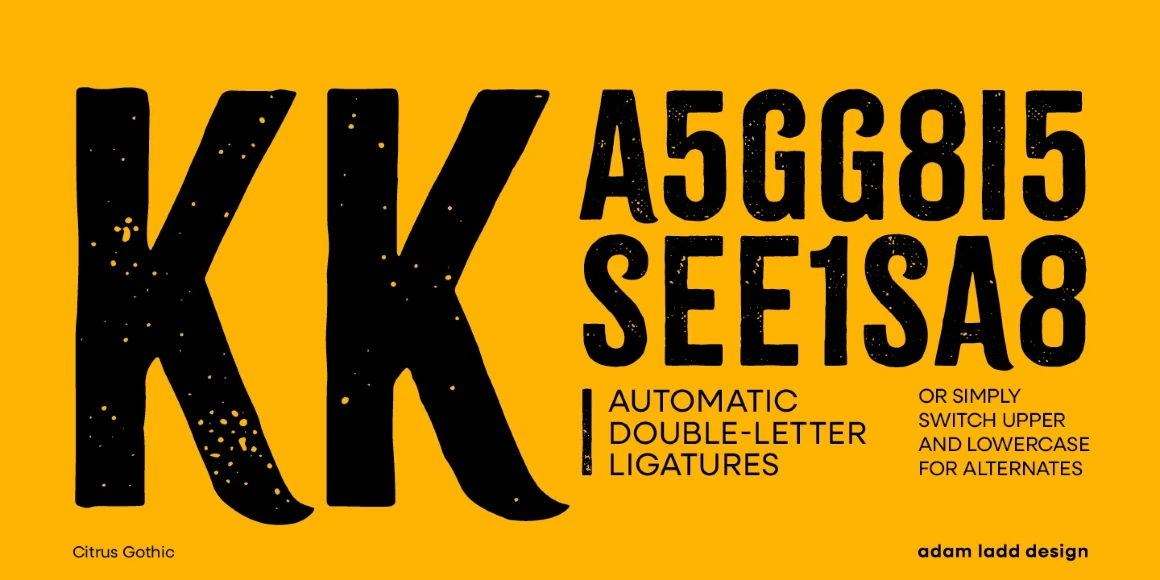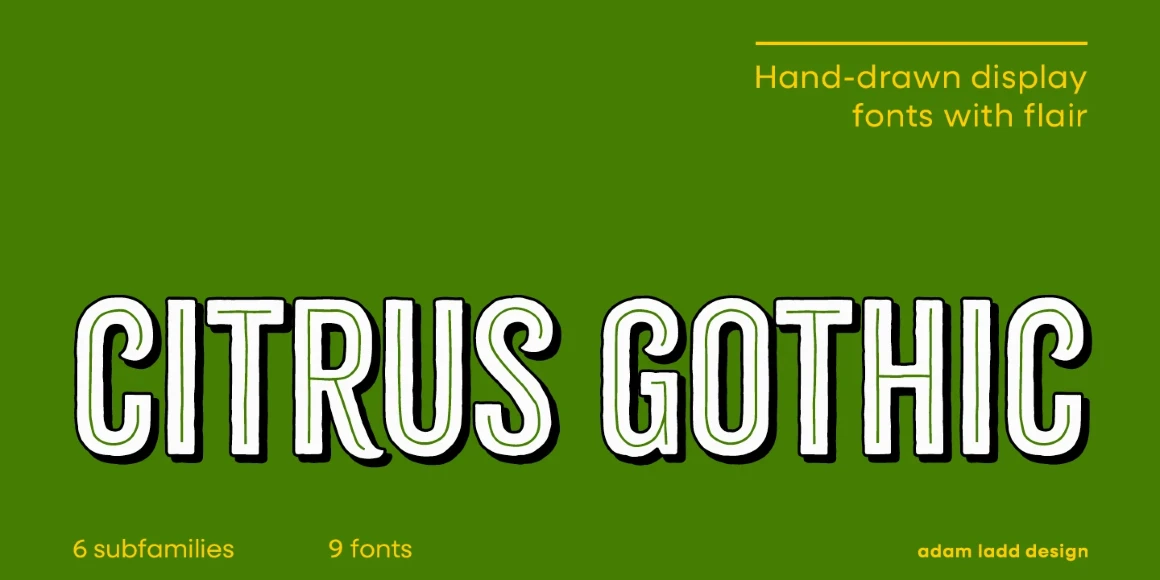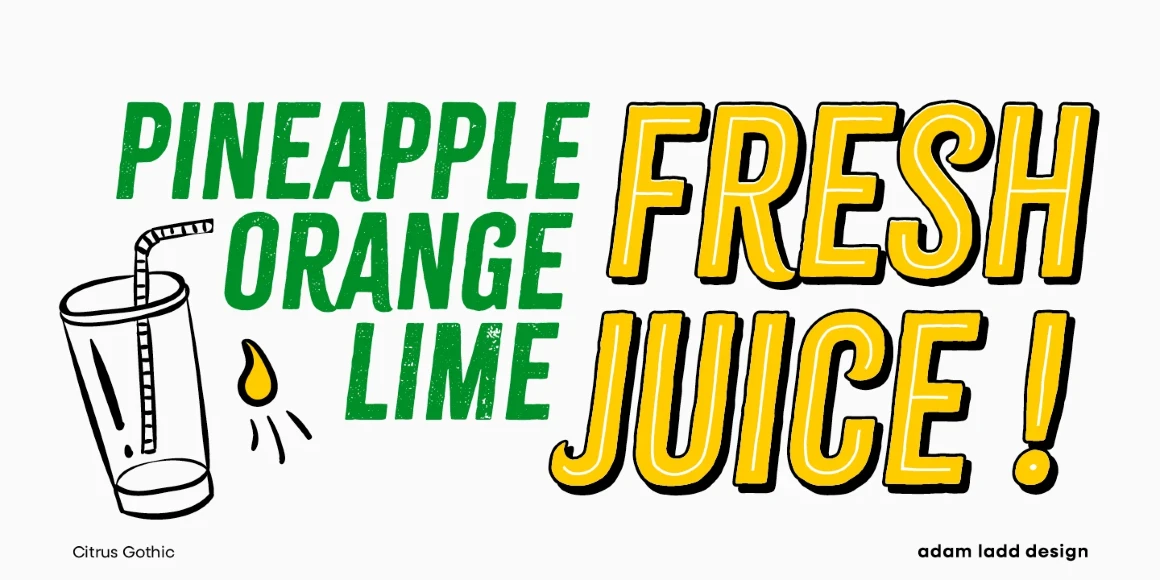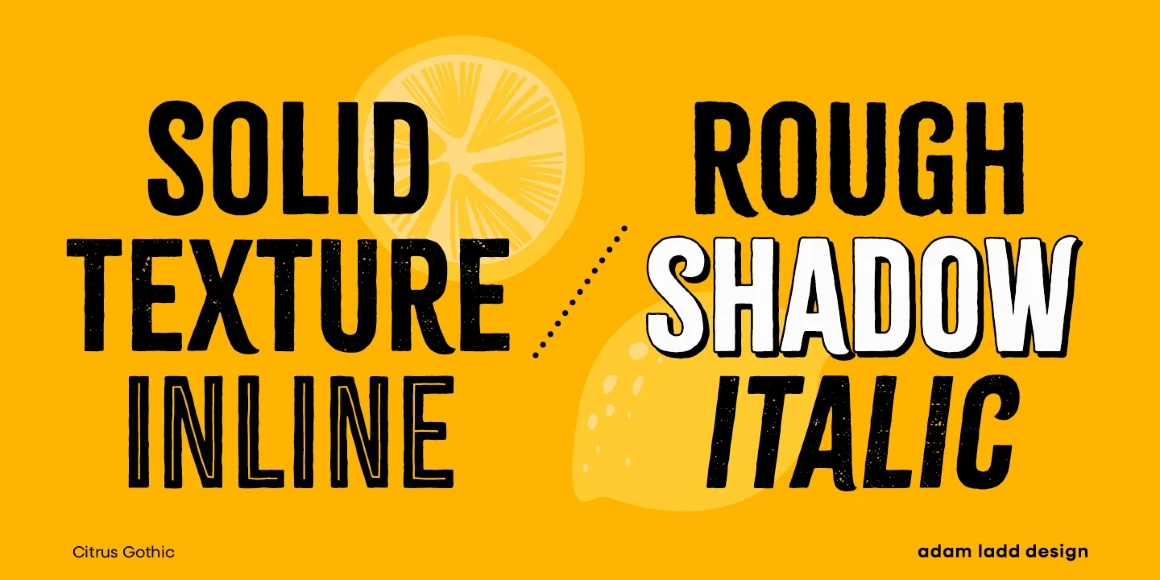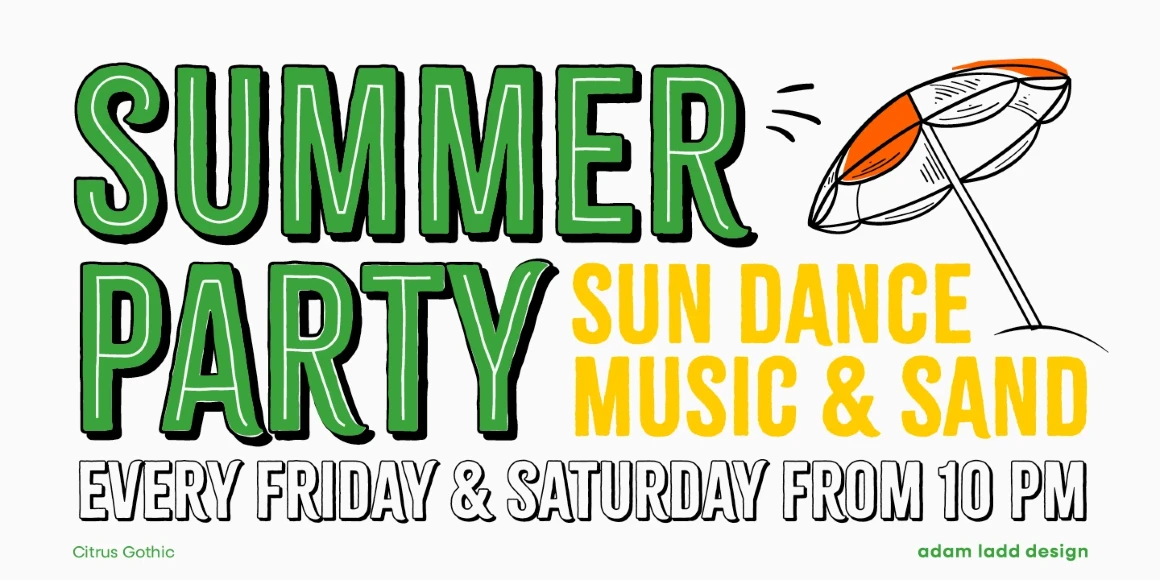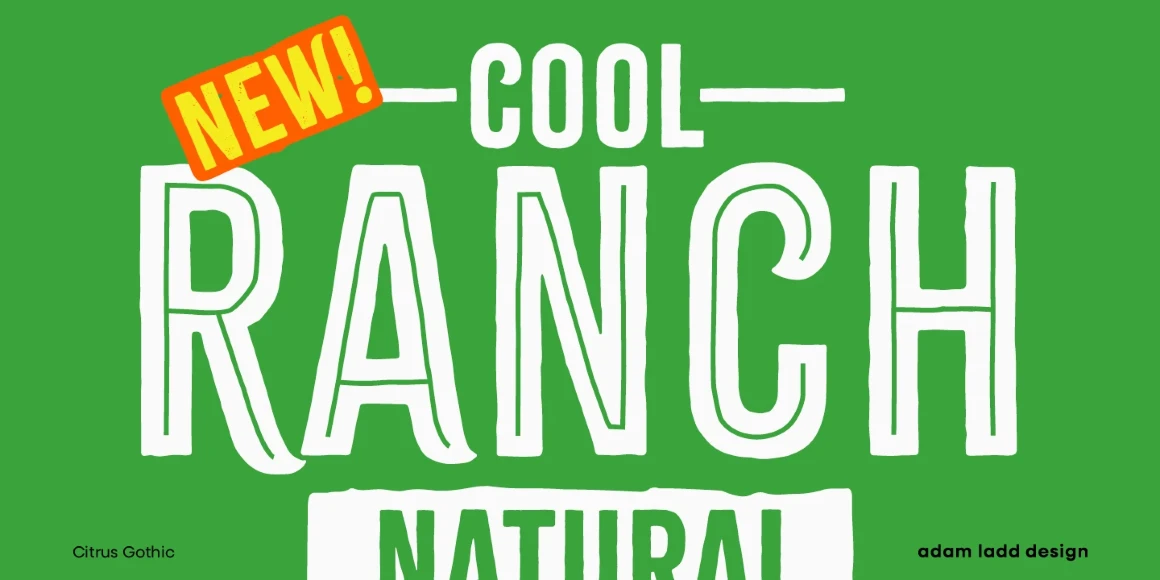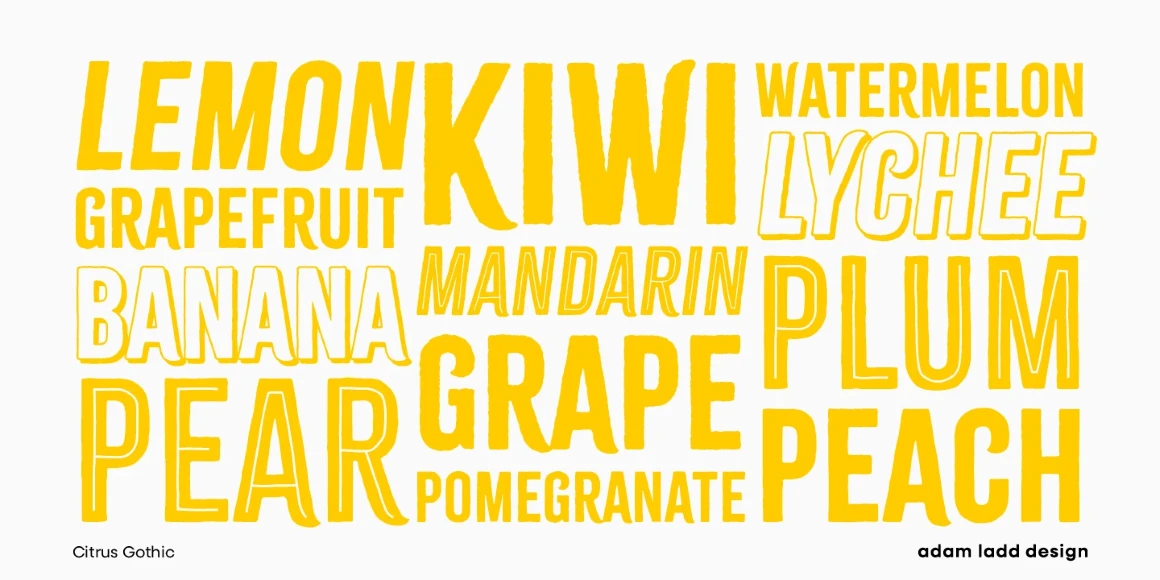
Citrus Gothic
By Adam Ladd
Citrus Gothic Inline Regular
Citrus Gothic Regular
Citrus Gothic Rough Regular
Citrus Gothic Shadow Regular
Citrus Gothic Solid Regular
Citrus Gothic Inline Regular Italic
Citrus Gothic Regular Italic
Citrus Gothic Rough Regular Italic
Citrus Gothic Shadow Regular Italic
Citrus Gothic Solid Regular Italic
Citrus Gothic is a distinctly hand-drawn, all-caps gothic sans family featuring solid, texture, inline, rough, shadow, and italic styles. Its design leans on a classic, condensed gothic appearance but adds flair with the irregular details and curled terminals. The variety of styles gives multiple options to fit the look you’re going for. An authentic, hand-drawn typeface that is functional and unique, making it great for branding, packaging, headlines, and other display uses.